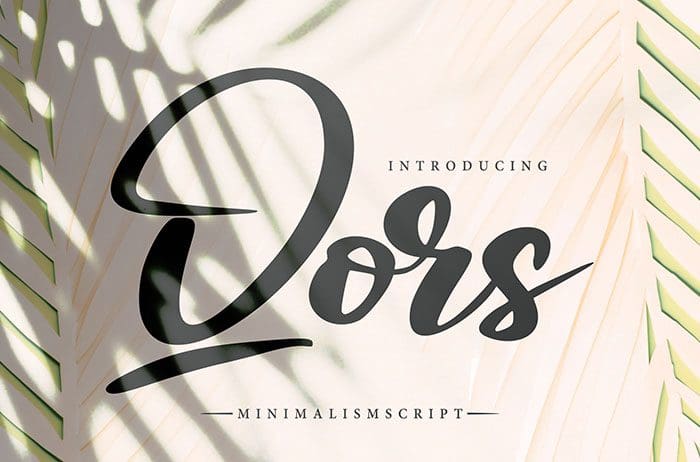
Qors Minimalism Script Font
Qors is a gorgeous minimalism script font featuring a unique calligraphic style. It will turn any design idea into a true standout. Thanks to Vunira Studio for sharing this font! Take a look at this portfolio for more of his stunning fonts.